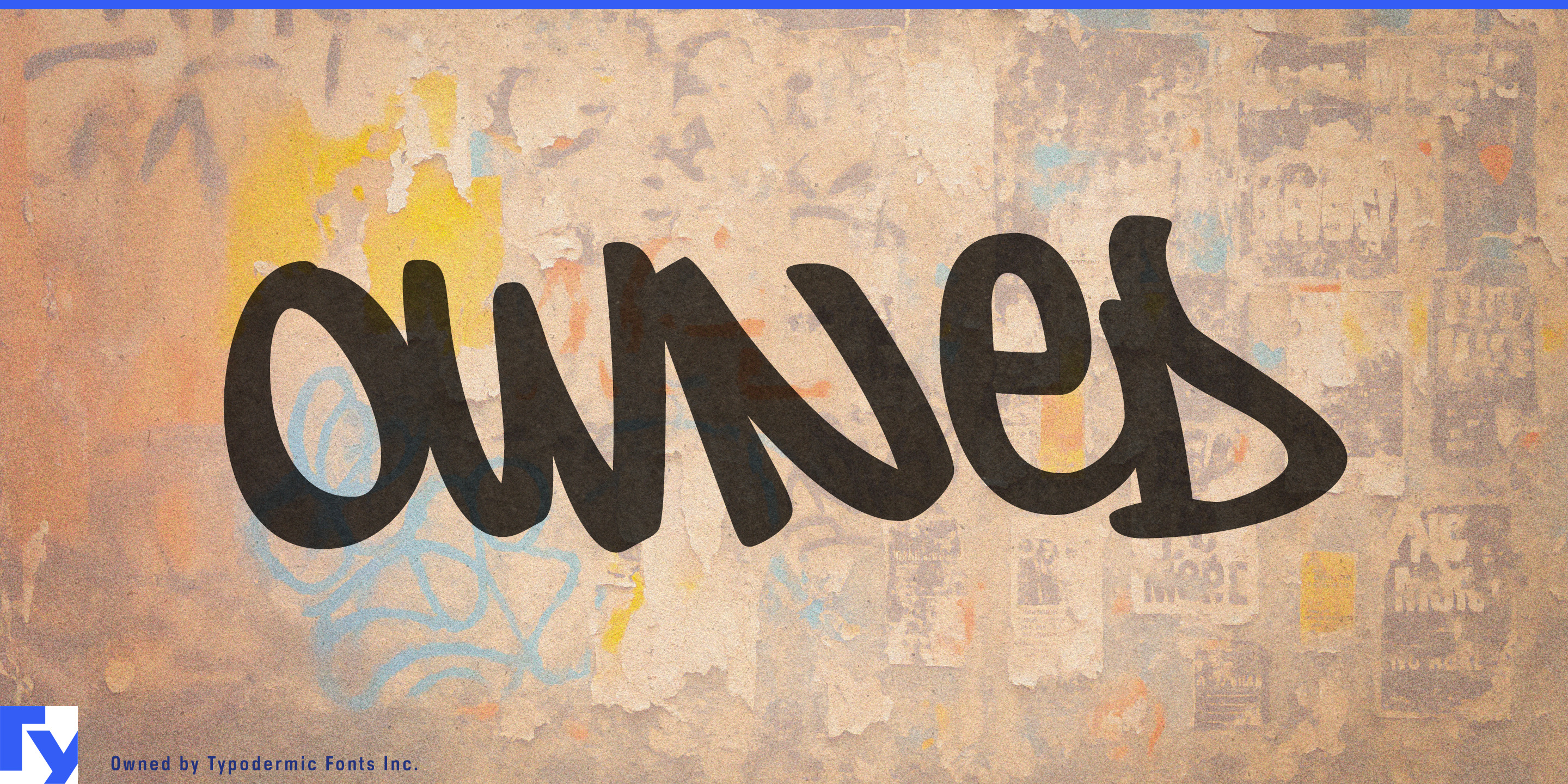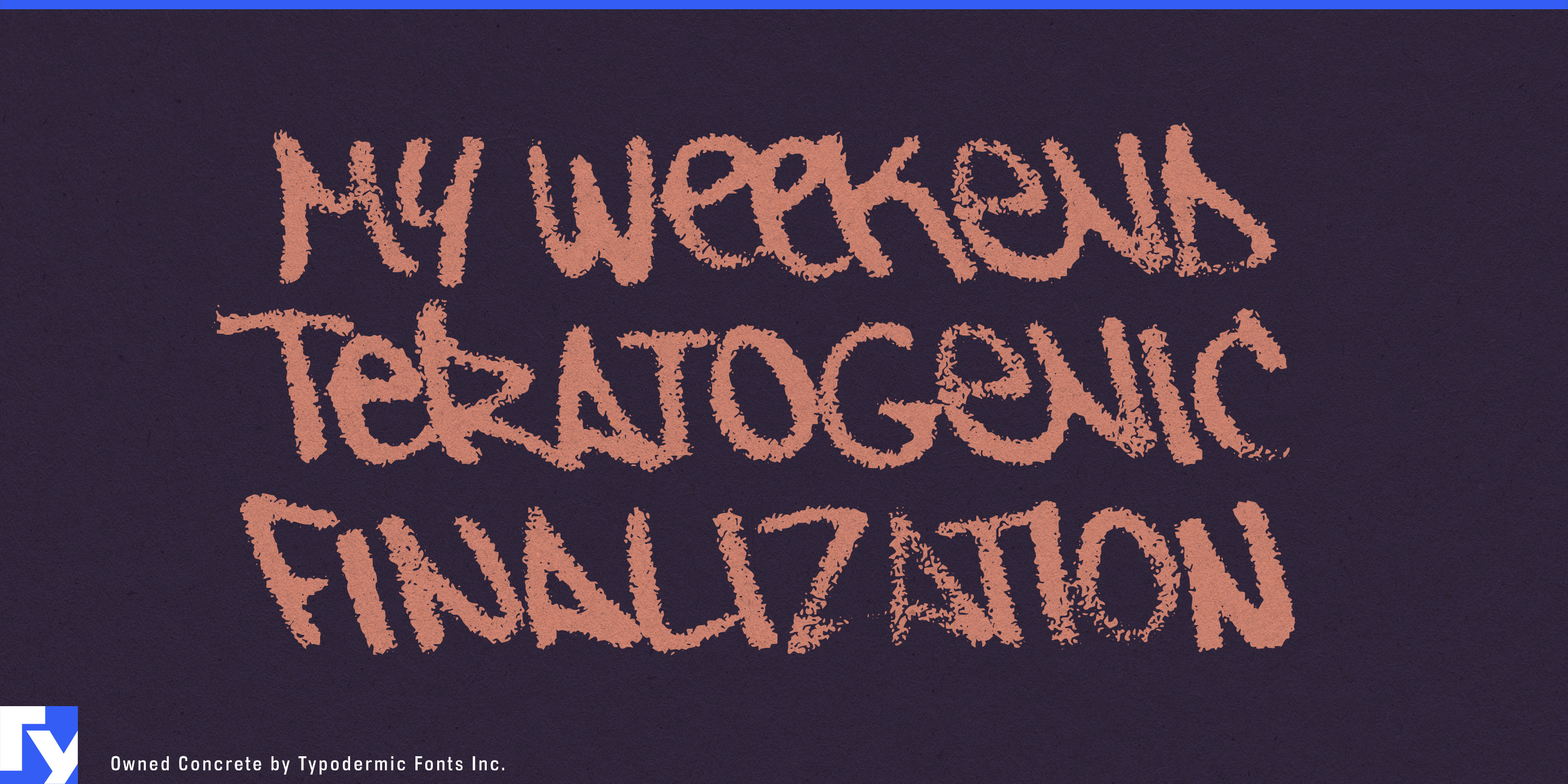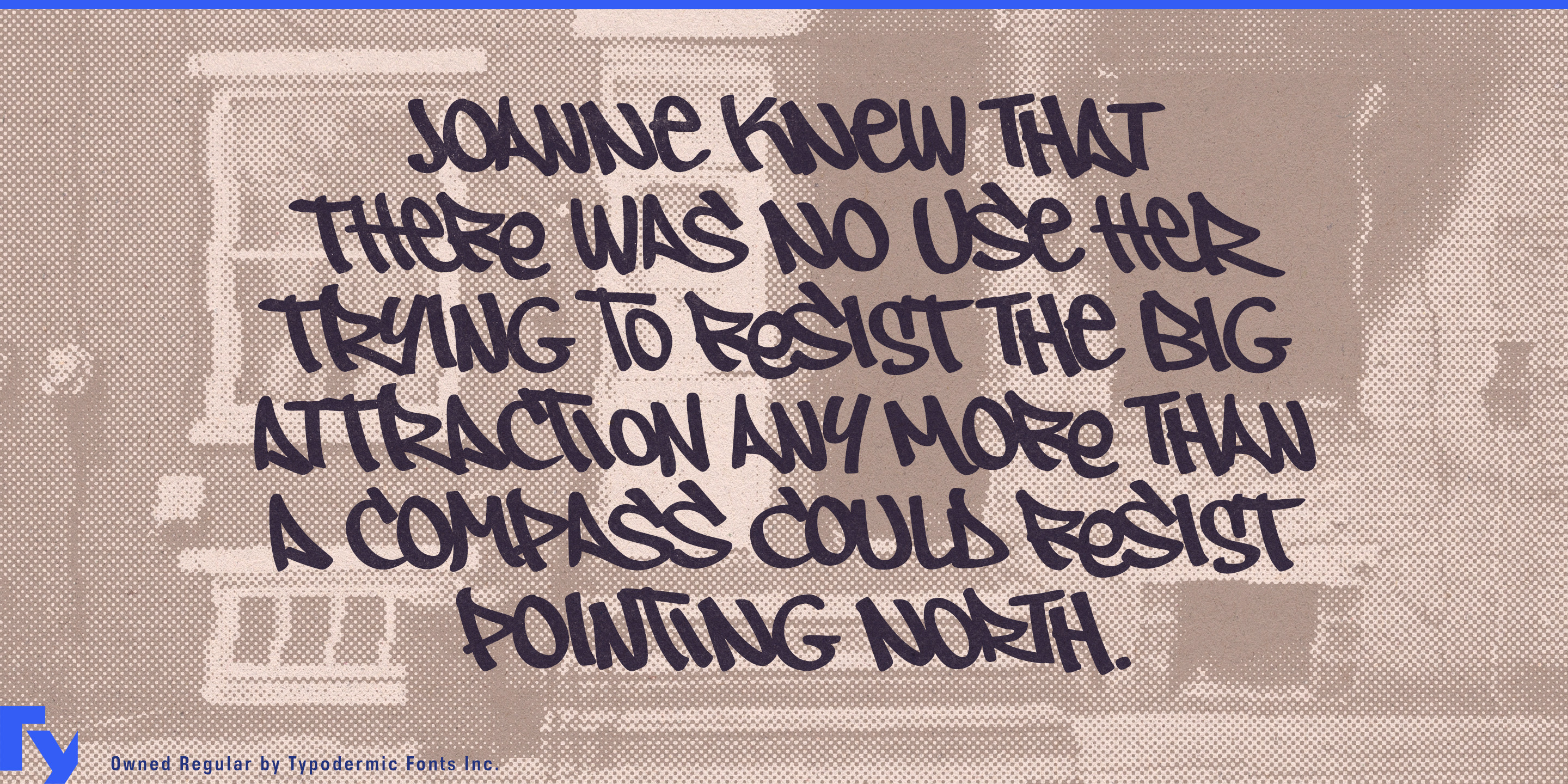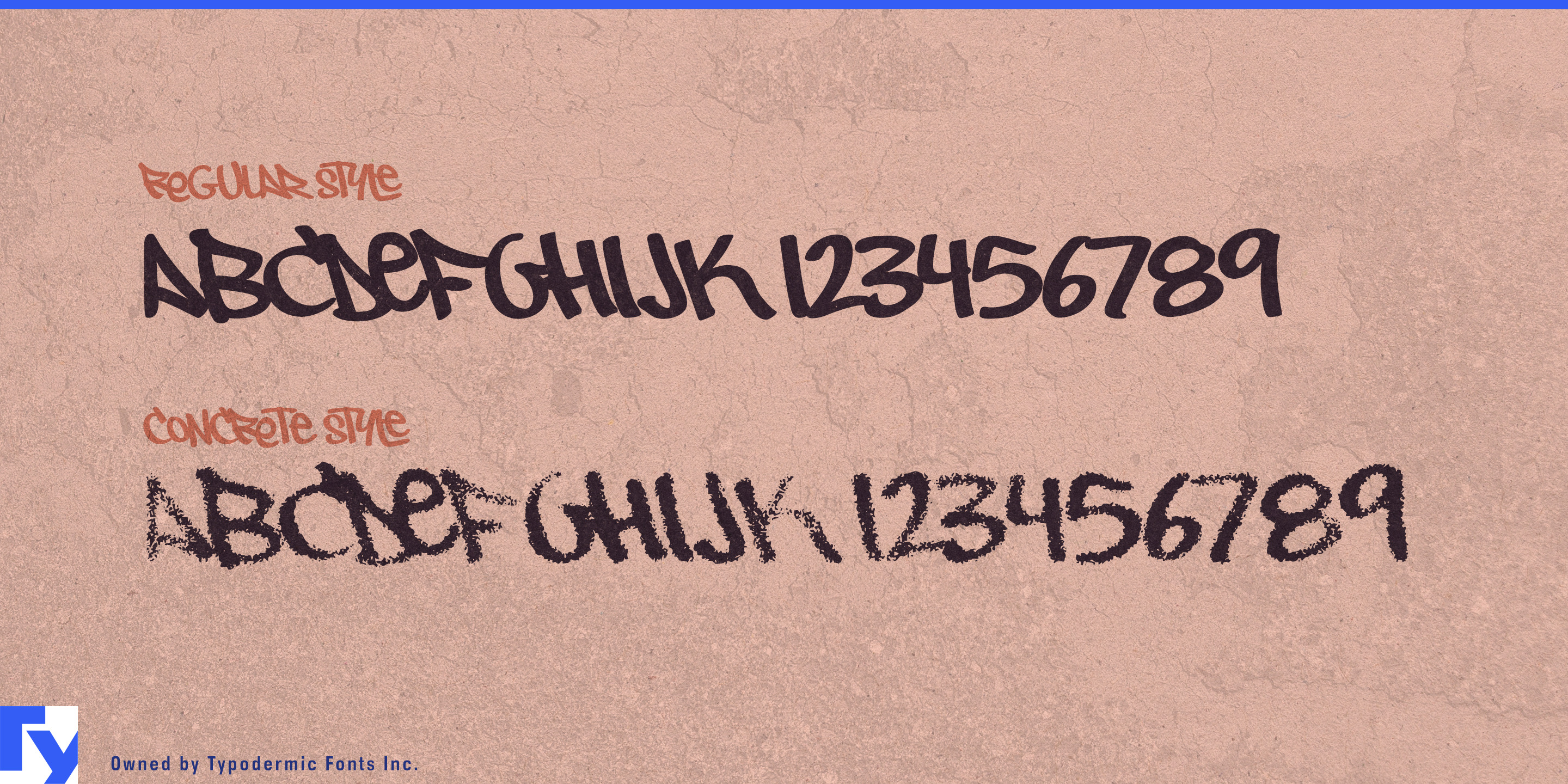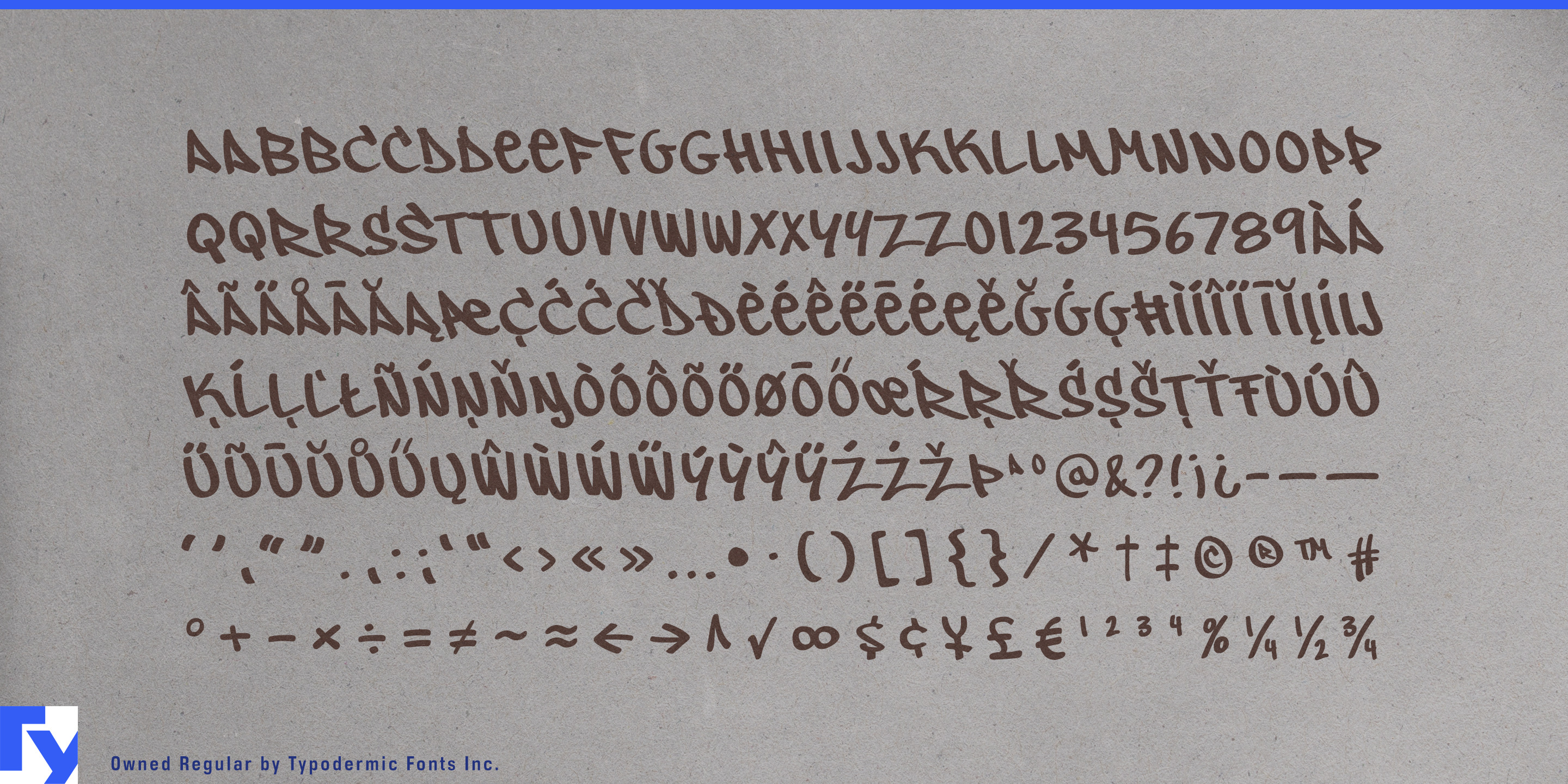
Owned
Owned is marker lettering with an unusual sense of motion. Instead of leaning forward like a conventional brush script, its letters pitch backward while strokes continue into one another through abrupt connections. Ligatures help preserve those joins, keeping words from breaking into a row of isolated glyphs. Regular presents the lettering cleanly; Concrete roughens the stroke as though the marker were skipping across an uneven surface.
That makes Owned especially useful as a secondary voice inside polished sportswear campaigns. Signature sneakers, athlete capsule collections, basketball apparel, skate footwear, and combat-sports gear often need typography that can sit beside an established corporate system while giving an individual product or athlete its own identity. Owned can handle athlete names, shoe nicknames, colorway names, short campaign phrases, garment graphics, shoebox typography, retail displays, and launch graphics.
Street basketball and action sports offer the same contrast at event scale. 3×3 tournaments, skate competitions, BMX events, branded courts, and urban climbing activations can use Owned for competitor names, category graphics, temporary signage, merchandise, sponsor installations, and event slogans while a cleaner companion face handles schedules, scores, rules, and wayfinding.
Premium streetwear provides another natural setting when the typography belongs to a collection rather than the whole company. Capsule launches, artist collaborations, drop names, garment back prints, hangtags, store windows, and temporary retail installations can use Owned as the expressive layer over a more controlled identity system.
Urban game worlds can push the idea further. Skateboarding, street-racing, fighting, and open-world games need fictional crew names, stickers, garage graphics, clothing brands, level titles, environmental signs, mission graphics, and in-world advertisements. Owned can establish a consistent marker-written voice across those assets, with Regular handling cleaner graphics and Concrete carrying the same identity onto walls, ramps, garages, and worn surfaces.
Owned works best when a controlled visual system needs an informal countervoice. Its backward pitch, abrupt joins, and hurried marker construction let a product name, athlete identity, collaboration, or fictional subculture break through without taking over the entire system.